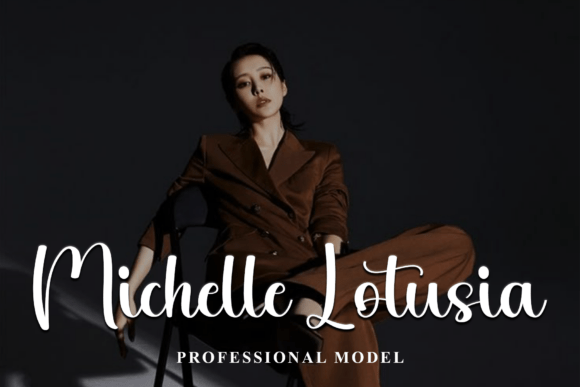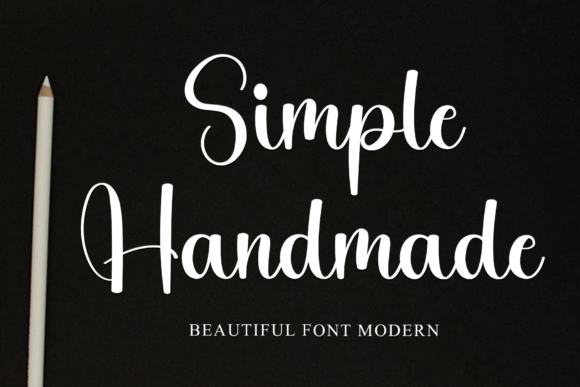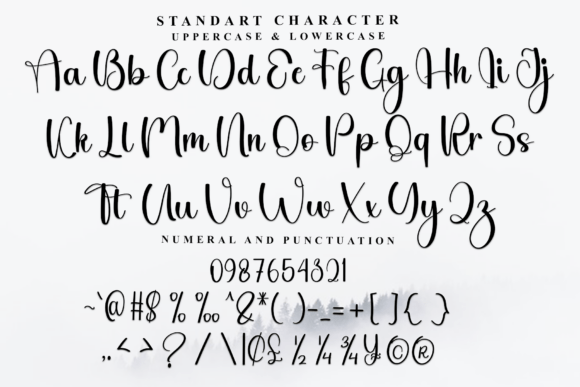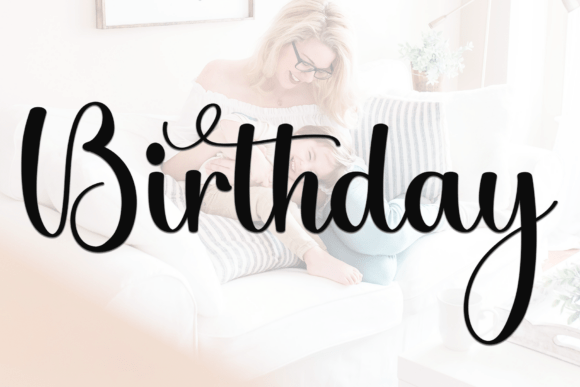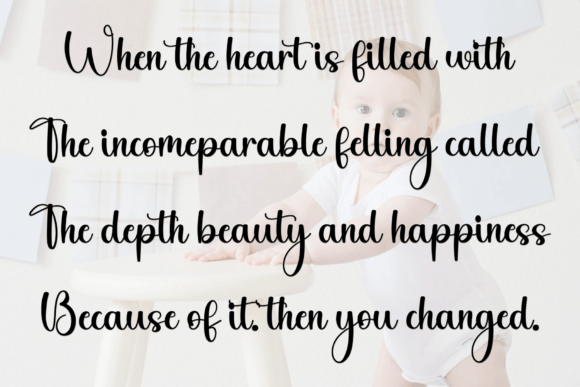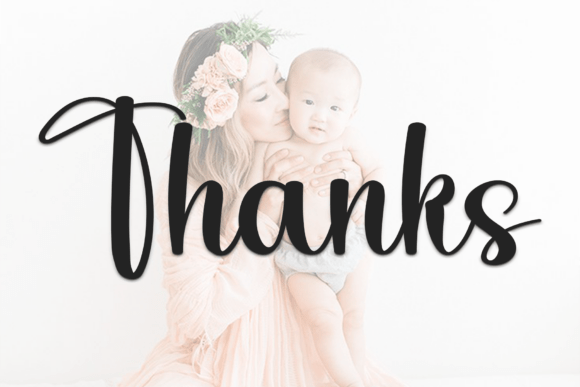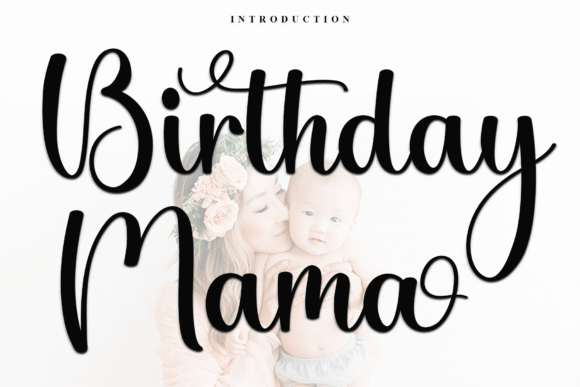
Introducing Birthday Mama Font: The Sweet and Friendly Choice for Your Designs
Are you a designer or crafter looking for a font that can add a touch of warmth and personality to your projects? Look no further than the Birthday Mama font! This sweet and friendly font is perfect for a wide range of designs, from birthday cards and invitations to branding and packaging. In this article, we’ll take a closer look at the Birthday Mama font, its unique features, and how you can use it to take your designs to the next level.
A Natural and Unique Style
One of the standout features of the Birthday Mama font is its natural and unique style. This font has a charming, hand-crafted feel that’s perfect for designs that need a personal touch. The letters are carefully crafted to have a friendly and approachable vibe, making it ideal for projects that require a warm and inviting tone. Whether you’re creating a birthday card, a gift tag, or a social media graphic, the Birthday Mama font is sure to add a touch of personality to your design.
The beauty of the Birthday Mama font is that it’s incredibly versatile. Its natural and unique style makes it fitting for a large pool of designs, and the only limit is your imagination! Here are just a few ideas to get you started:
- Birthday Cards and Invitations: Use the Birthday Mama font to create custom birthday cards and invitations that are sure to impress. You can add your own personal message or use it as is for a sweet and simple design.
- Branding and Packaging: Add a touch of personality to your branding and packaging with the Birthday Mama font. It’s perfect for businesses that want to convey a friendly and approachable tone.
- Social Media Graphics: Use the Birthday Mama font to create eye-catching social media graphics that are sure to stand out. You can create custom posts, stories, and even Instagram stories with this font.
- Crafting and DIY Projects: If you’re a crafter or DIY enthusiast, the Birthday Mama font is perfect for adding a personal touch to your projects. Use it to create custom labels, tags, and even iron-on designs.
Why Choose the Birthday Mama Font?
So why choose the Birthday Mama font over other fonts? Here are just a few reasons:
- Unique Style: The Birthday Mama font has a unique and natural style that’s hard to find in other fonts. Its hand-crafted feel makes it perfect for designs that need a personal touch.
- Easy to Read: Despite its unique style, the Birthday Mama font is easy to read and understand. This makes it perfect for designs that need to convey a message or tell a story.
- Versatile: As we mentioned earlier, the Birthday Mama font is incredibly versatile. You can use it for a wide range of designs, from birthday cards to branding and packaging.
Tips for Using the Birthday Mama Font
Here are a few tips for using the Birthday Mama font in your designs:
- Pair it with Other Fonts: The Birthday Mama font pairs well with other fonts, especially sans-serif fonts. Try pairing it with a clean and simple font for a striking contrast.
- Use it in Combination with Images: The Birthday Mama font looks great in combination with images, especially illustrations and watercolor designs. Try using it to add a caption or quote to your image.
- Experiment with Colors: The Birthday Mama font looks great in a variety of colors, from bright and bold to soft and pastel. Experiment with different colors to find the one that works best for your design.
In conclusion, the Birthday Mama font is a sweet and friendly font that’s perfect for designers and crafters. Its natural and unique style makes it incredibly versatile, and the only limit is your imagination! Whether you’re creating birthday cards, branding and packaging, or social media graphics, the Birthday Mama font is sure to add a touch of personality to your design. So why not give it a try and see what amazing designs you can create?